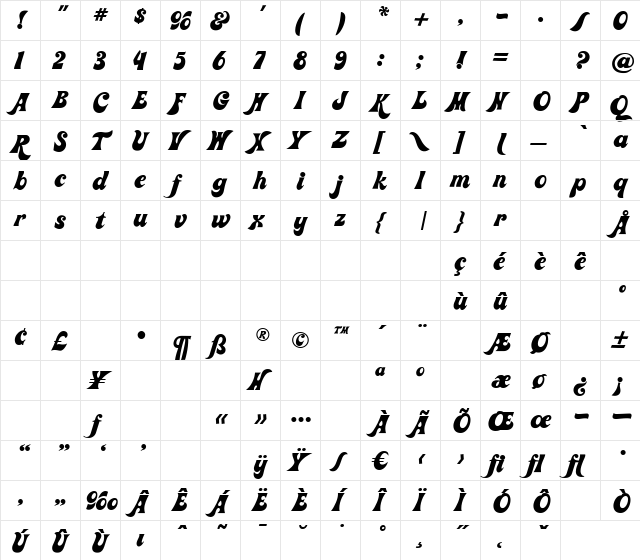
JollyRoger Regular
| Foundry | ITF |
| Designer | Phil Martin. Digital engineering by Steve Jackaman. |
Design Context for JollyRoger Typeface
JollyRoger is a composed and adaptable typeface that performs quietly and consistently across a wide range of design contexts.